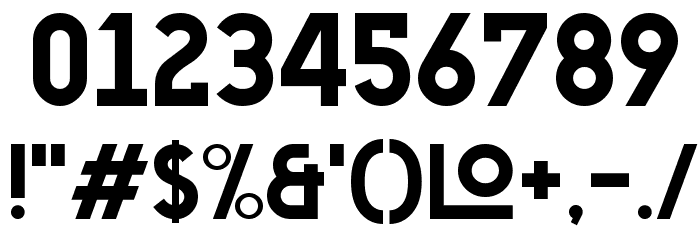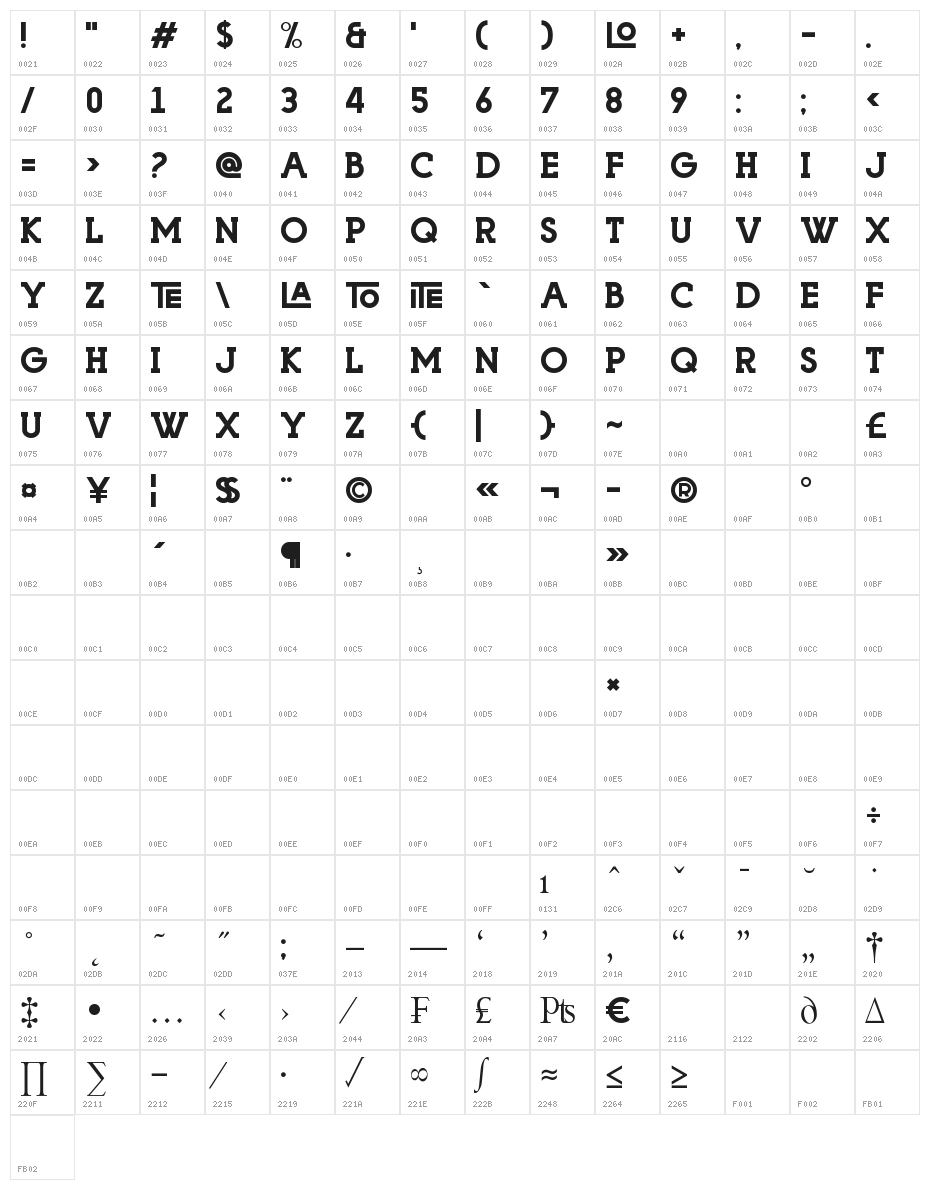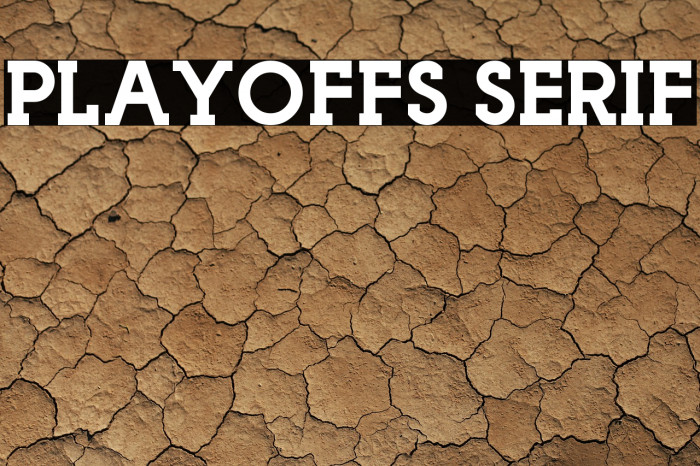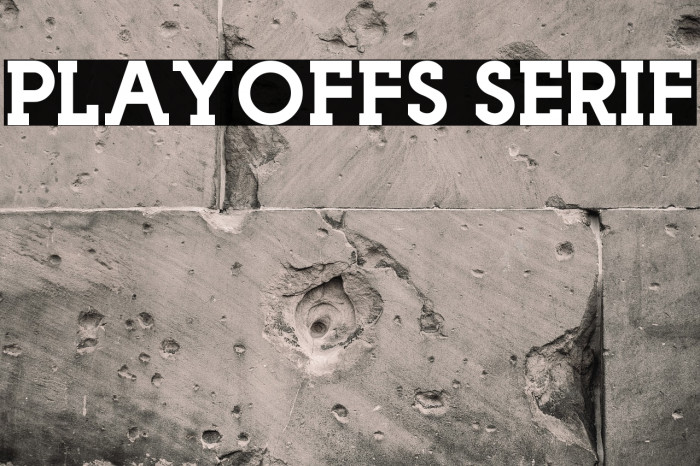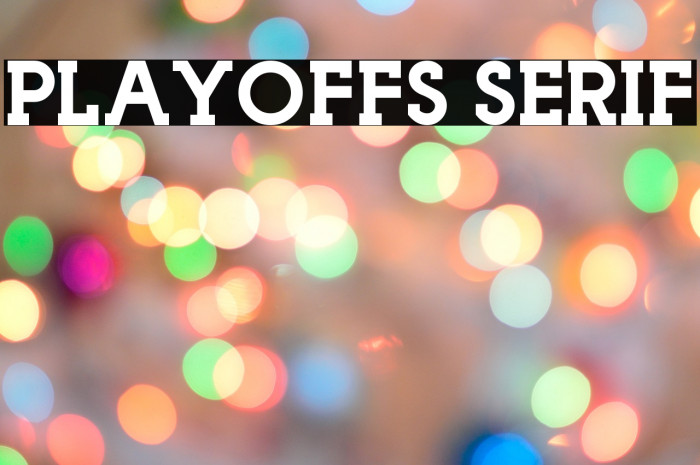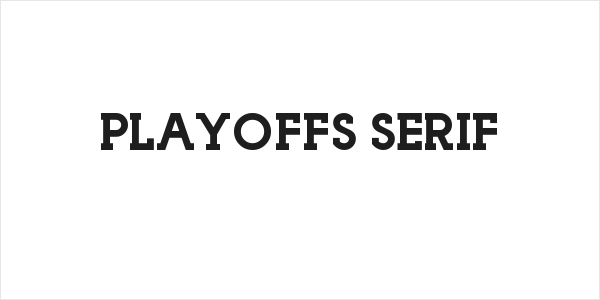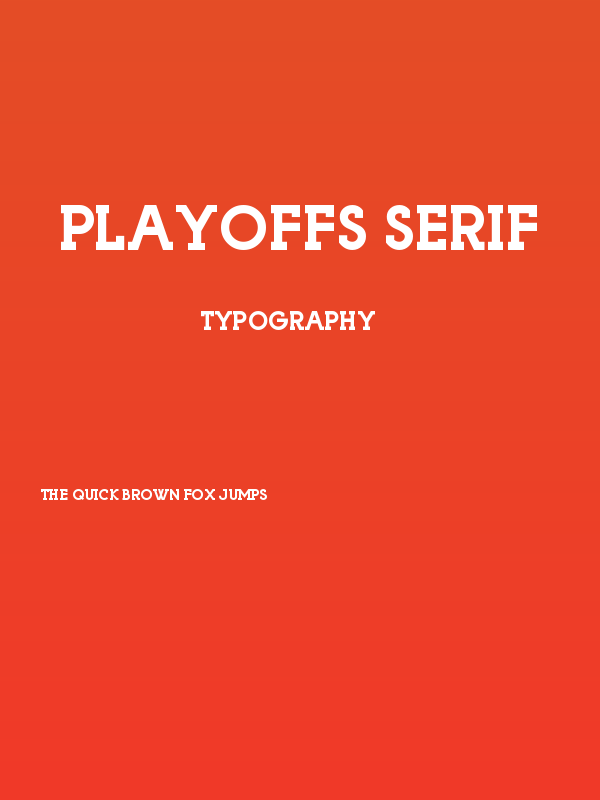
Playoffs Serif Font
Playoffs Serif Description
This font features a bold and robust serif style, characterized by thick, prominent strokes and strong serifs that give it a commanding presence. The uppercase letters are particularly striking, with a uniform height and width that convey stability and strength. The lowercase letters maintain a consistent style, complementing the uppercase with their own bold strokes and clear serifs. The numerals are equally bold, ensuring readability and impact. Special characters are designed with the same attention to detail, making them stand out while maintaining harmony with the rest of the font. Overall, this font exudes a classic yet powerful aesthetic, suitable for making a strong visual statement.
| Proposed Projects | Ideal for headlines, posters, branding, and any project requiring a strong, impactful serif font. |